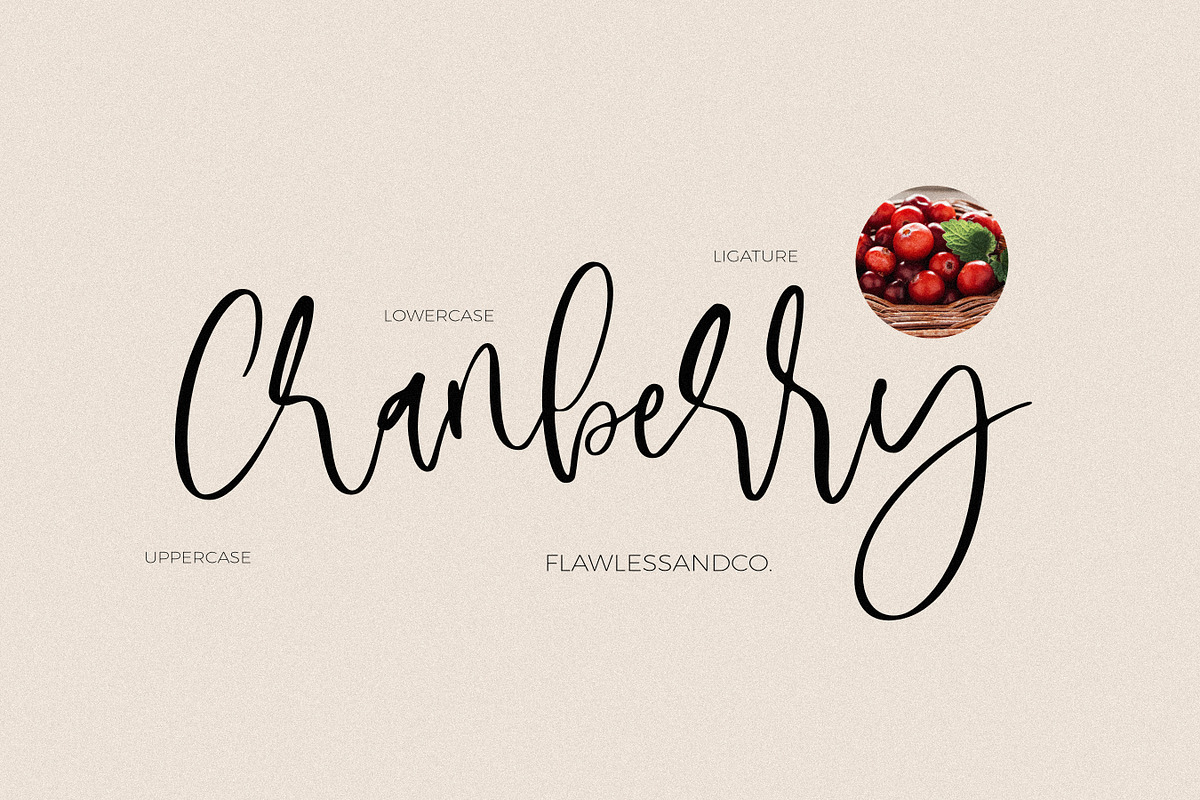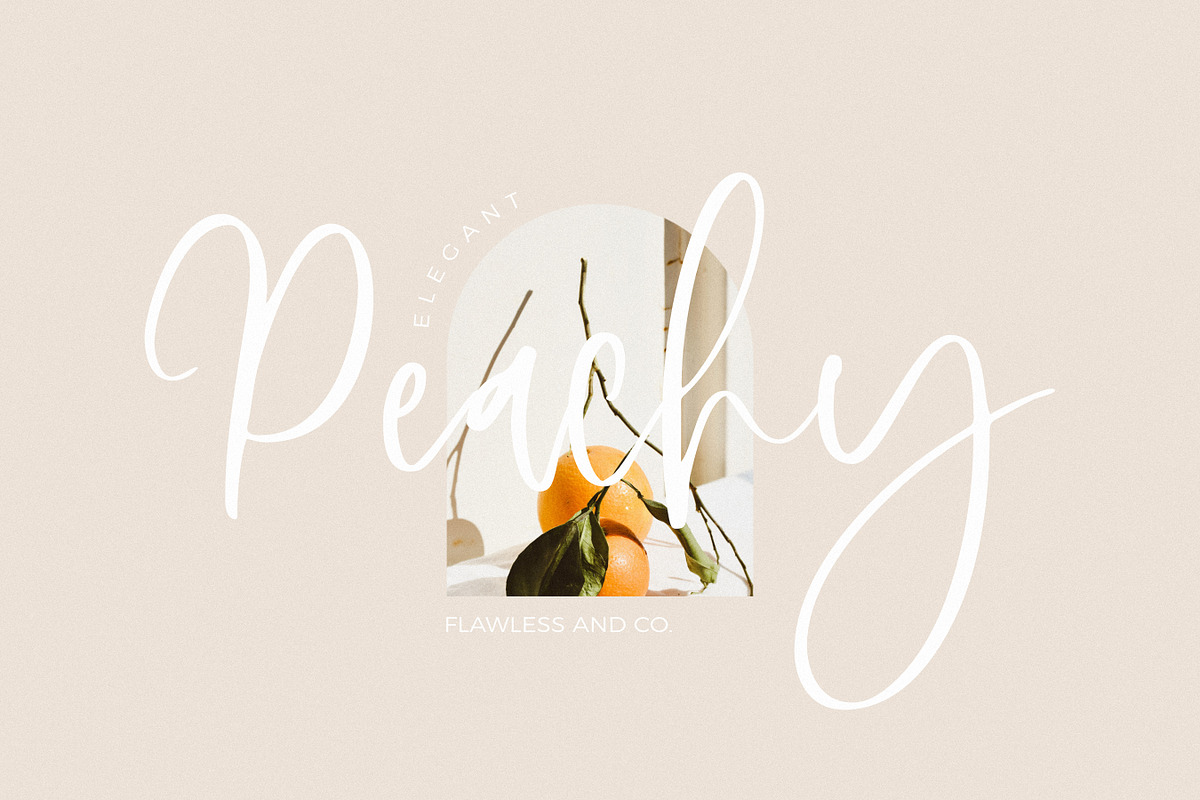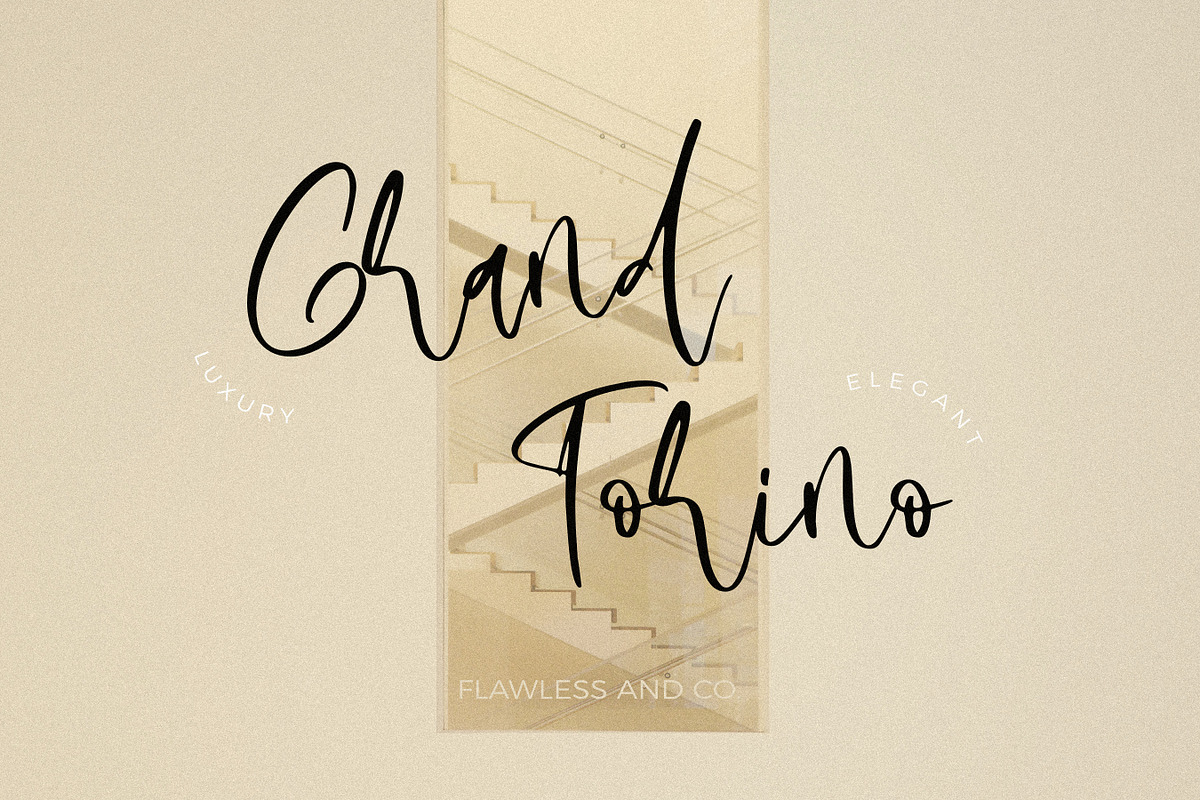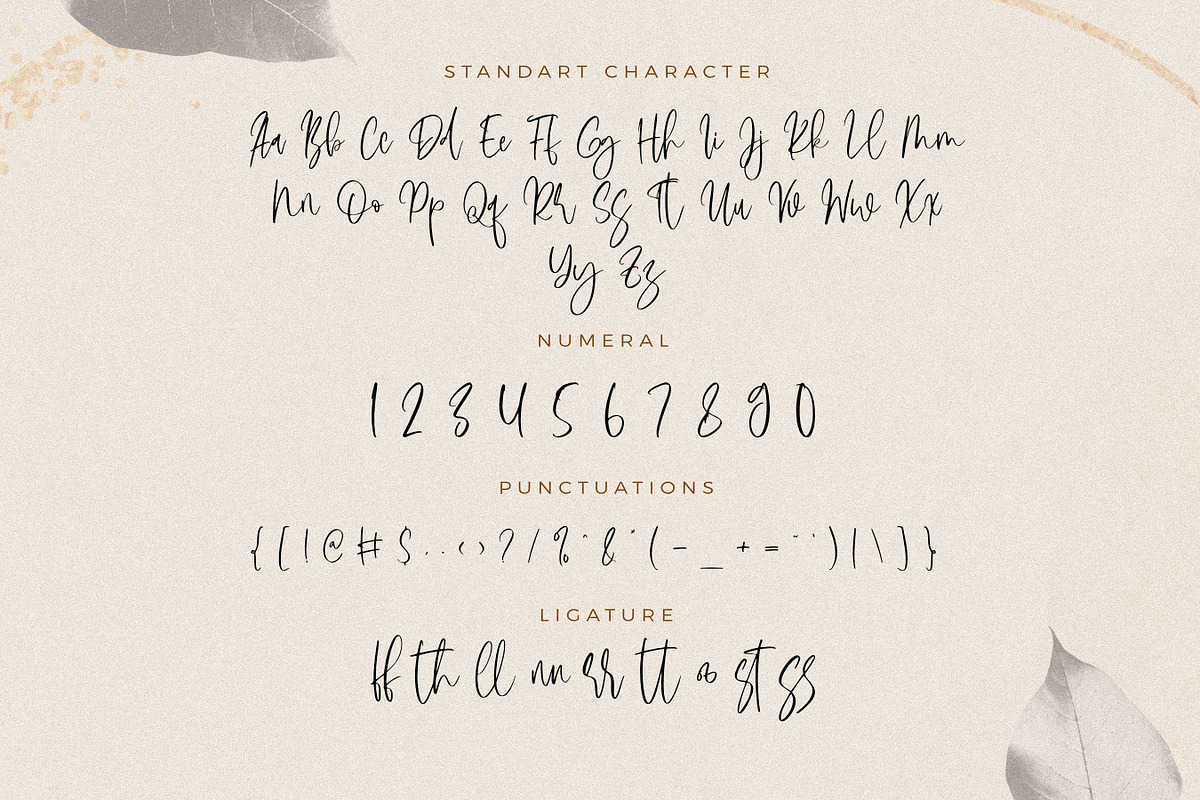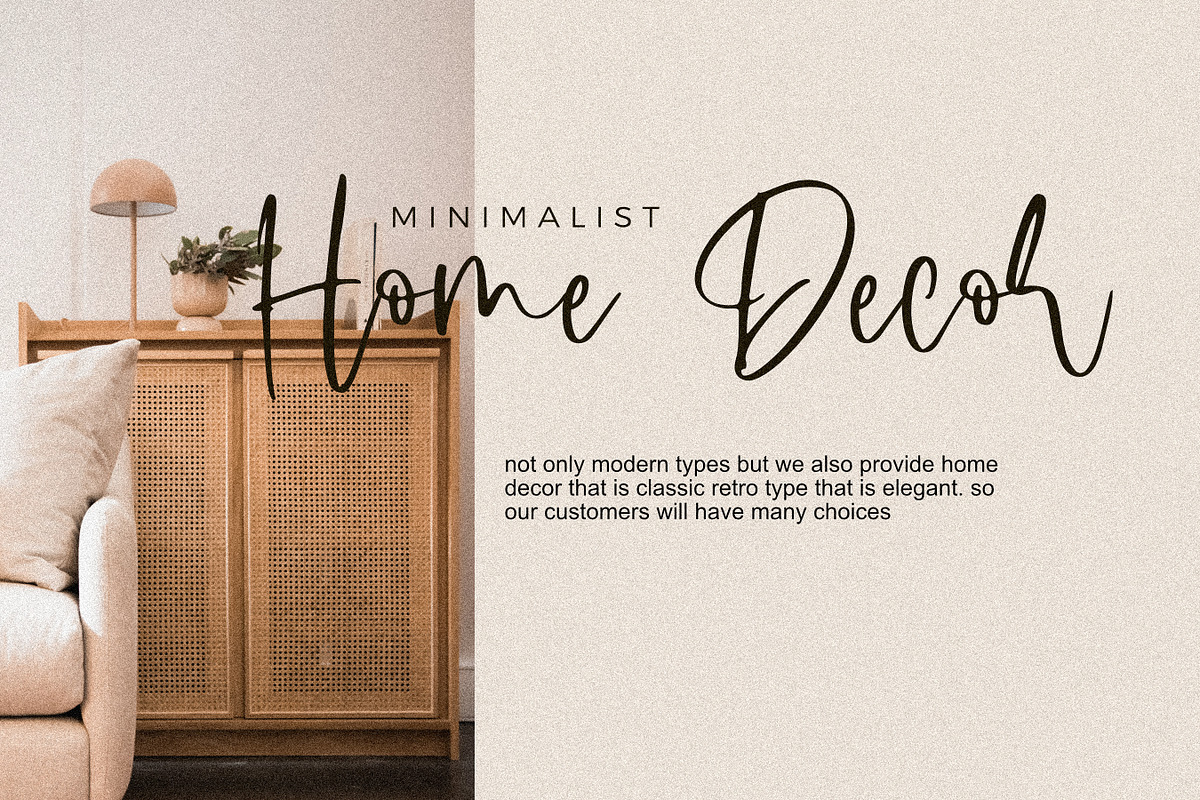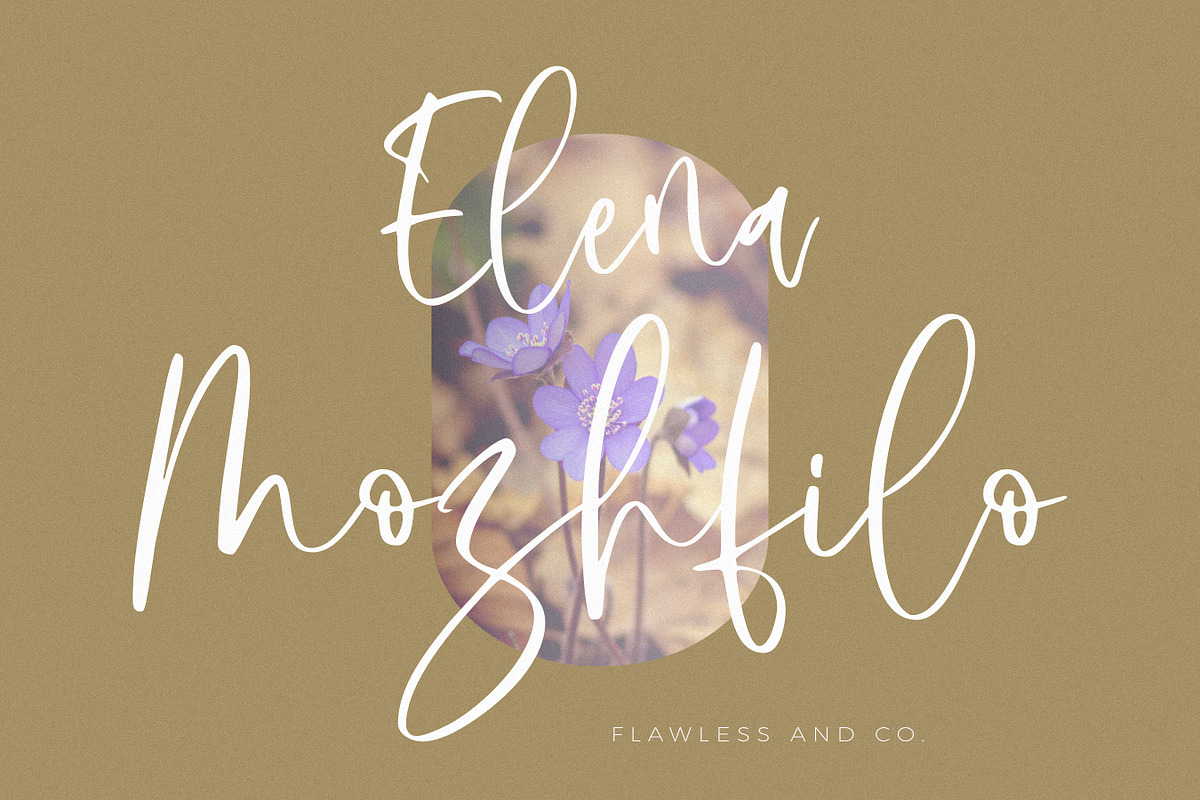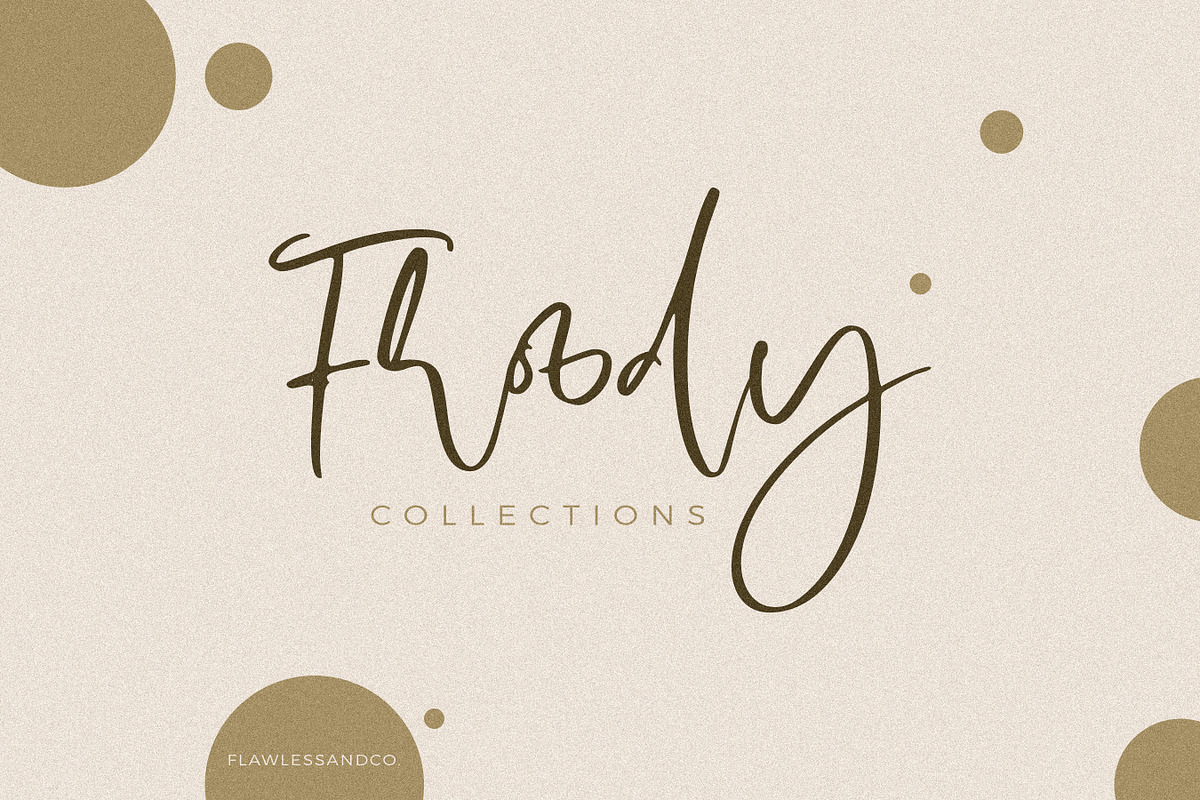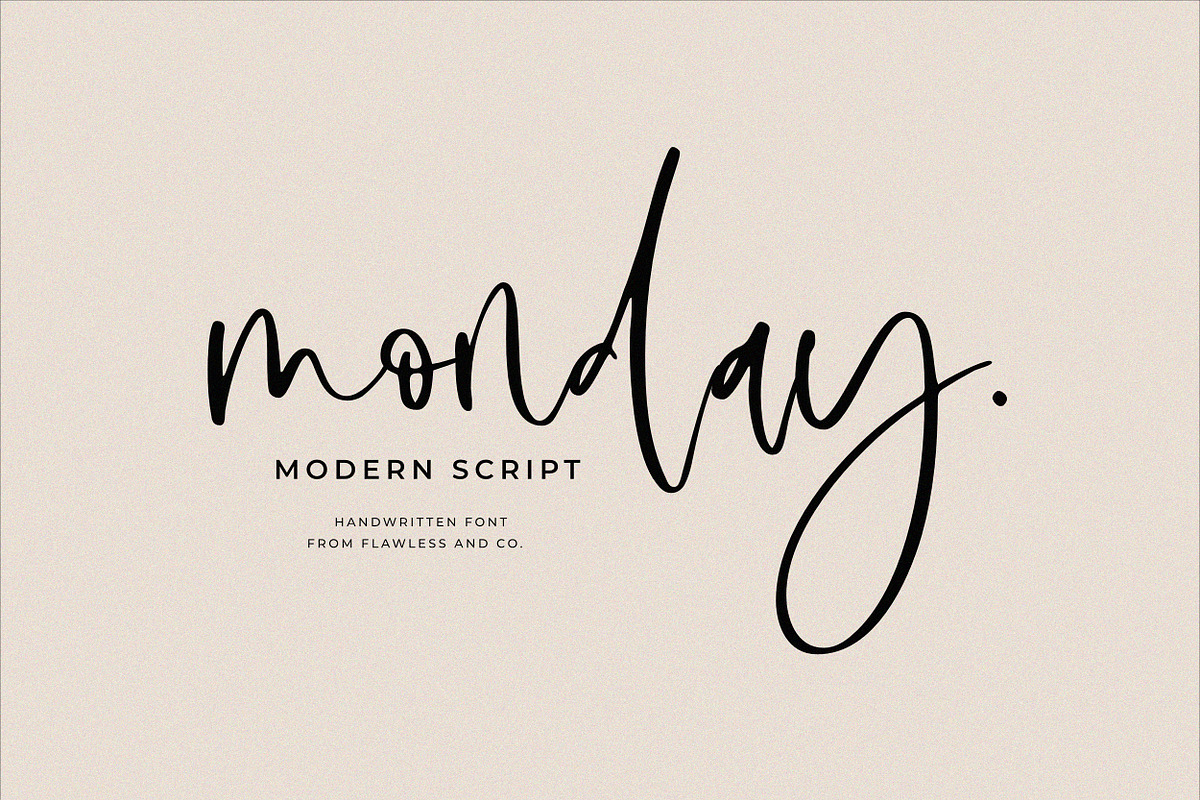
Monday Script
Monday Script - Handwritten Script Font, Brush Font, Cursive Font, Modern Calligraphy, Wedding Font, Handlettered, Boho Font
Monday Script is a handcrafted script, this style gives a feel of Girly, modern, Suitable for any graphic designs such as branding materials, t-shirt, print, business cards, logo, poster, t-shirt, photography, quotes .etc
Multilingual Uppercase alphabet A-Z Lowercase alphabet a-z Alternate Character Numbers 0-9 Some punctuation